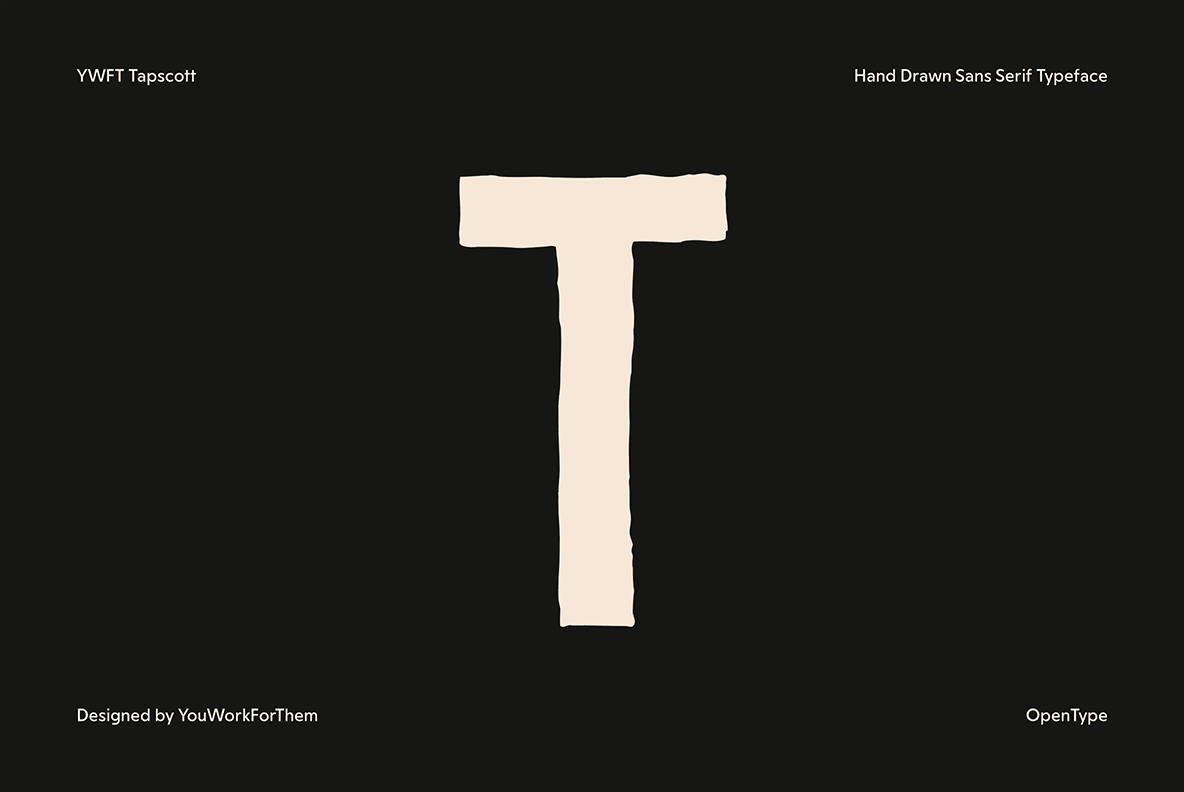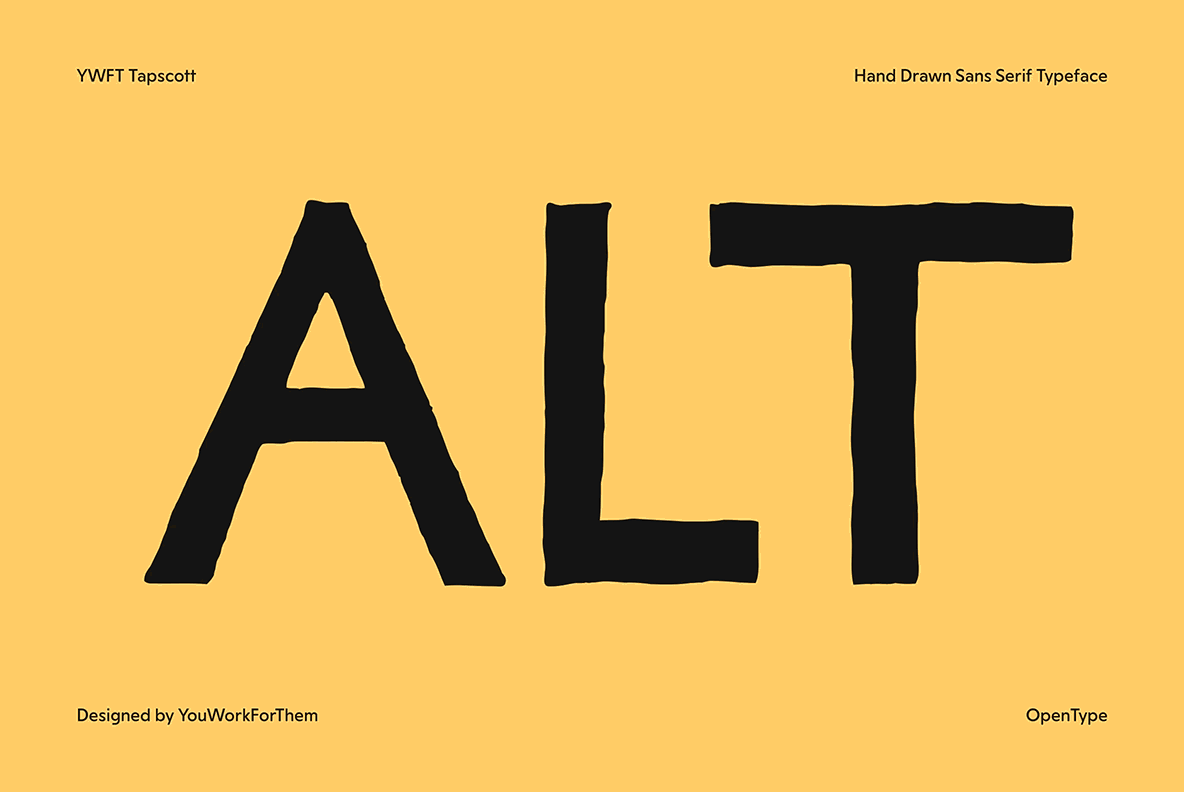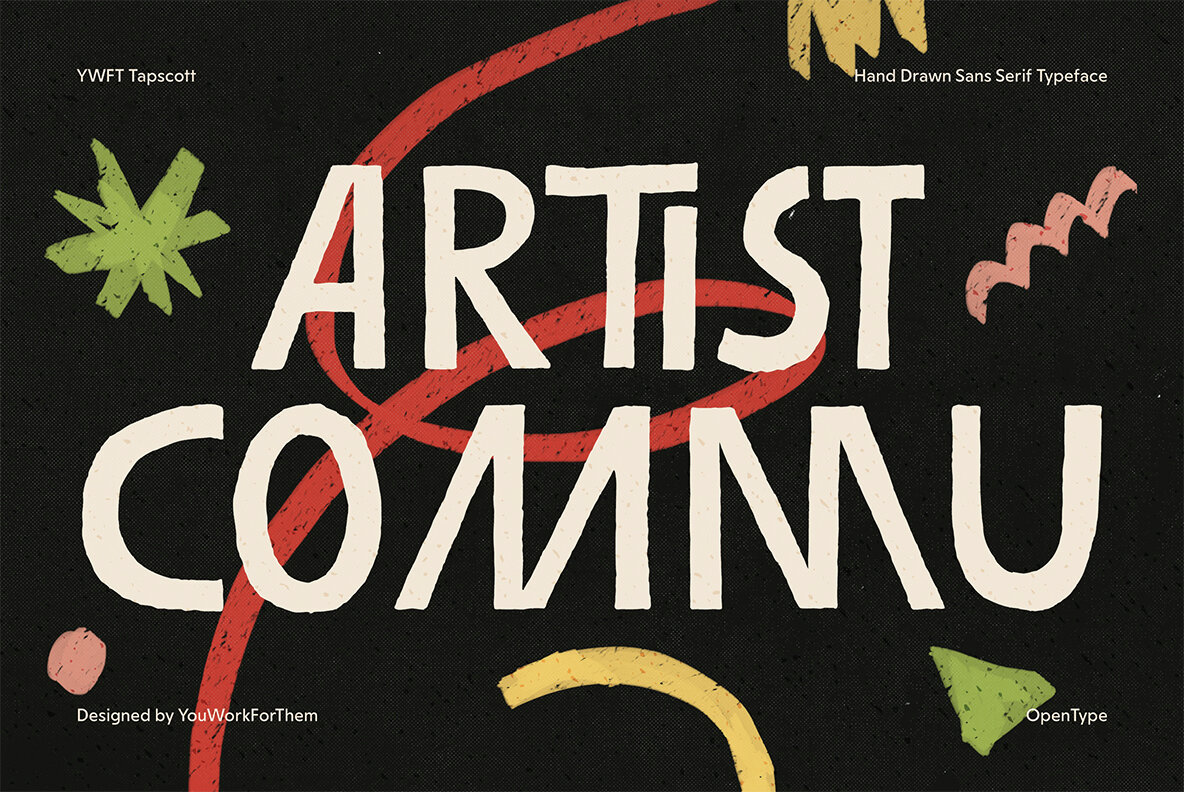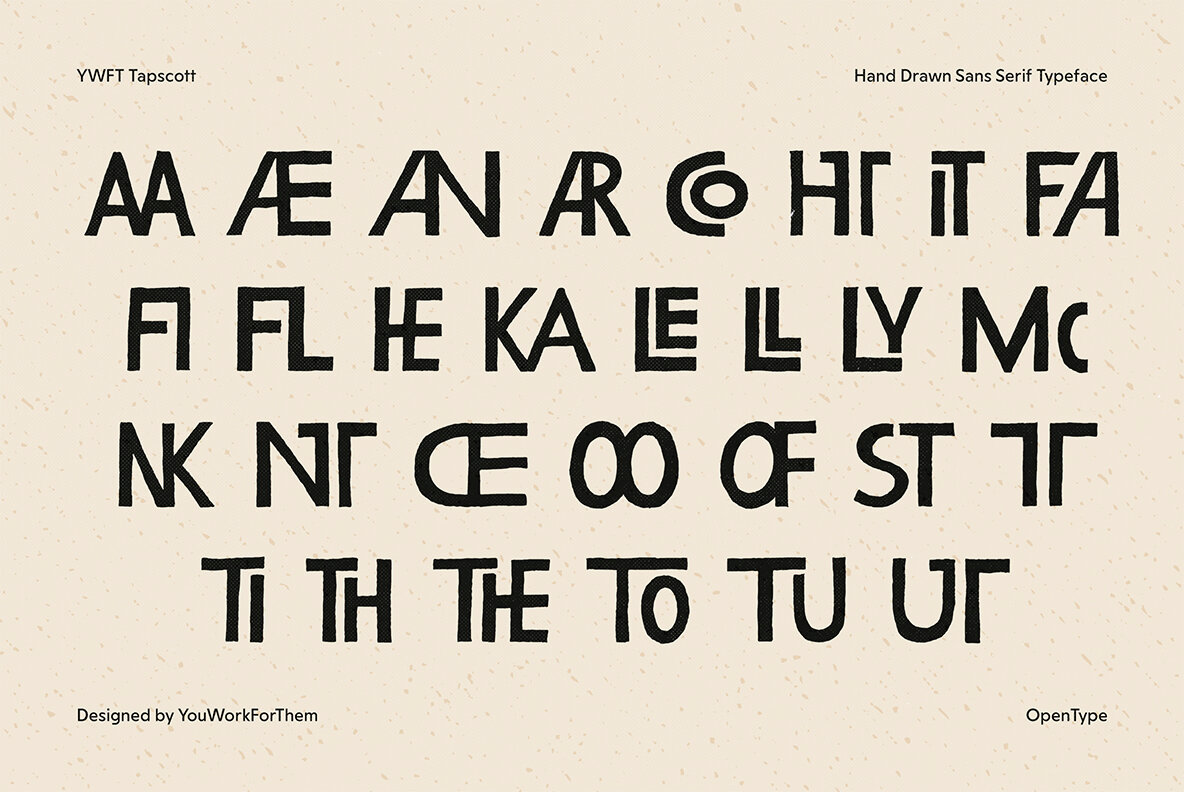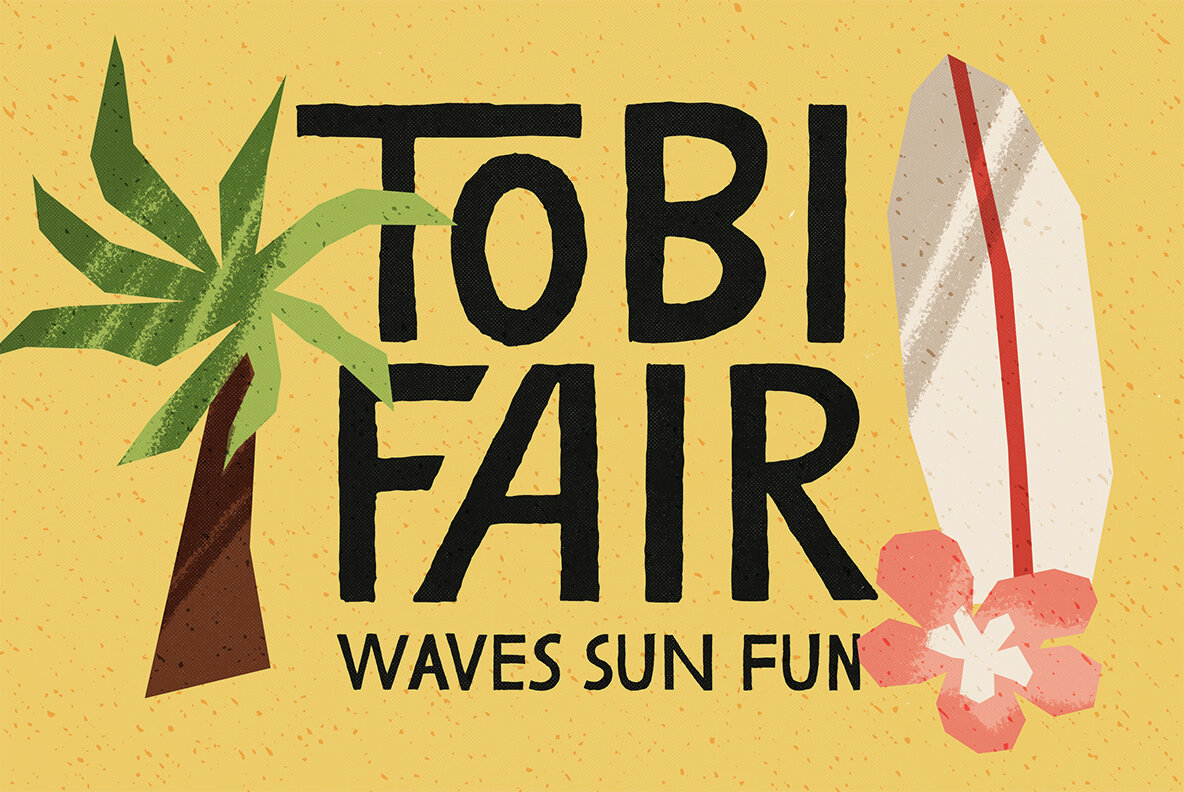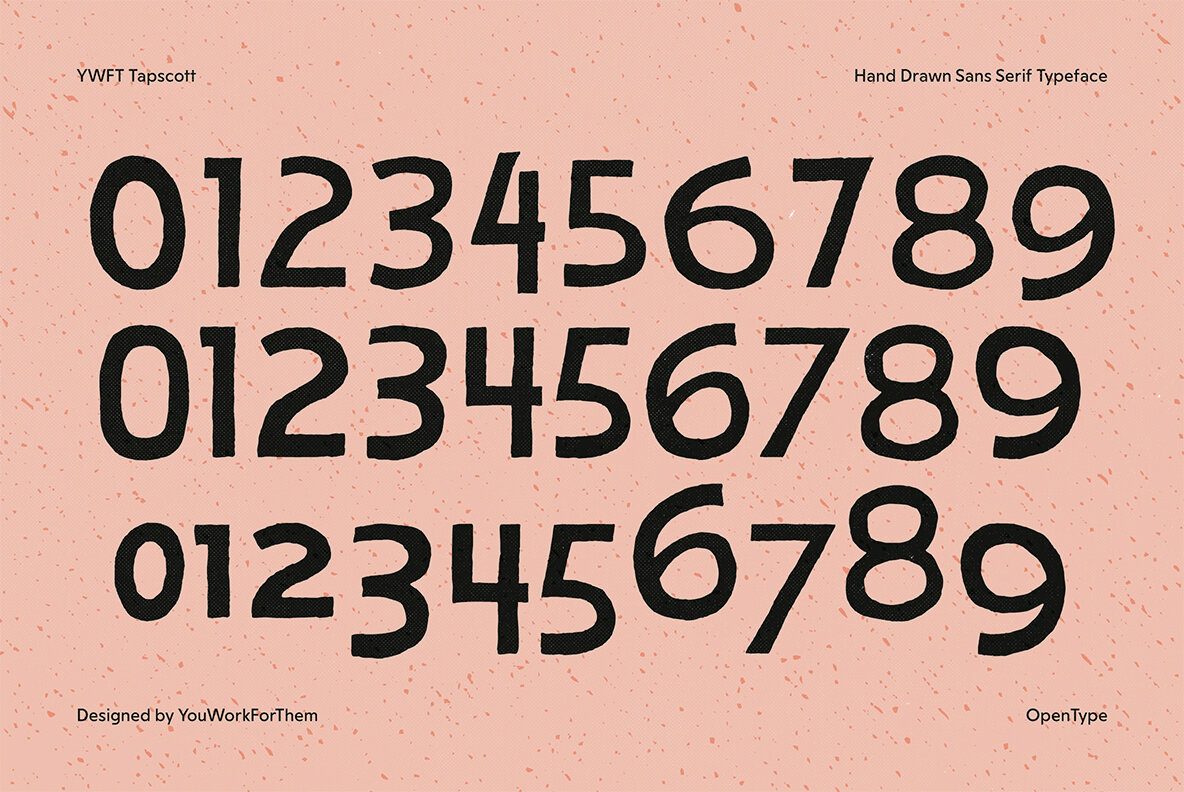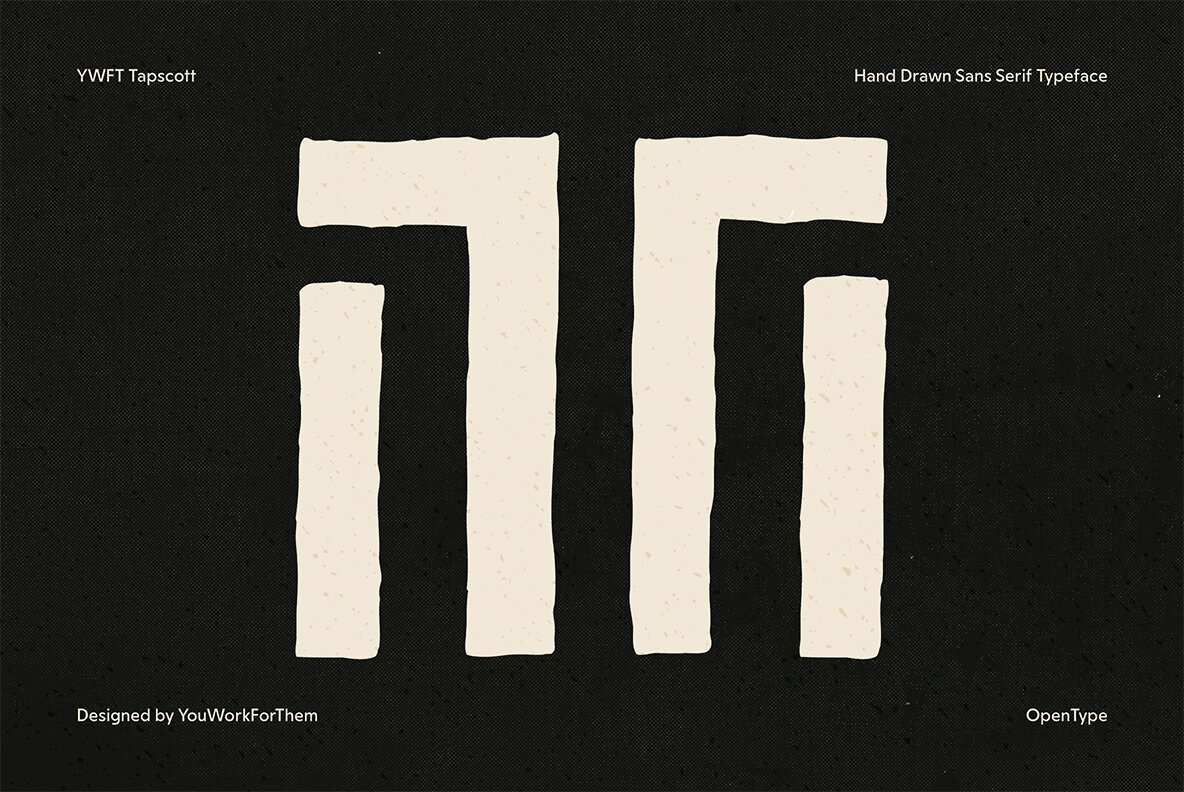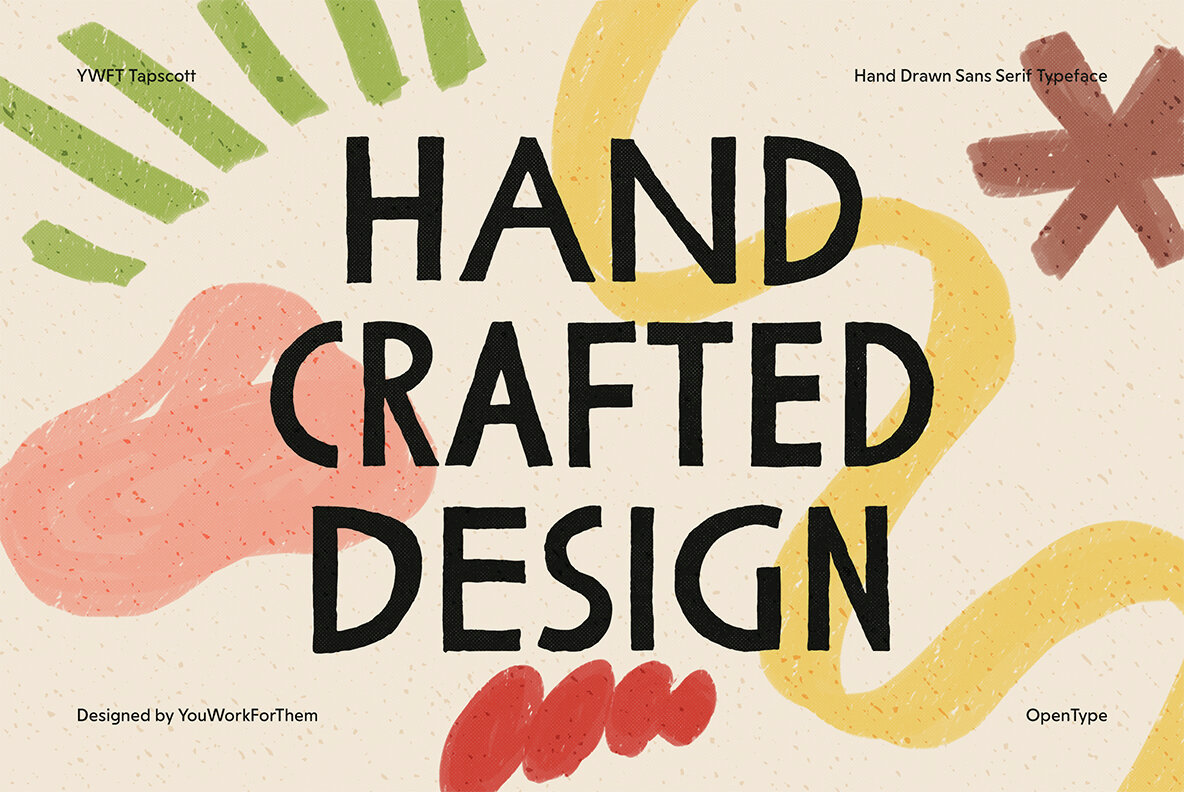
Foundry: YouWorkForThem
Designer: YouWorkForThem
YWFT Tapscott is an Opentype font named for Horace Tapscott, the great jazz pianist, composer and founder of the Pan Afrikan Peoples Arkestra. The font was inspired by Tapscott's signature sound, with a tip of the Malo hat to the aesthetics of other 60s/70s jazz releases. The Opentype features allow for many possible alternate characters, in addition to an ensemble of advantageous ligatures, built for you in the spirit of unity. YWFT Tapscott is a premium release from YWFT that works well in music-related projects, children's, retro and American-/French-styled projects. Designed exclusively by Michael Cina and YouWorkForThem.